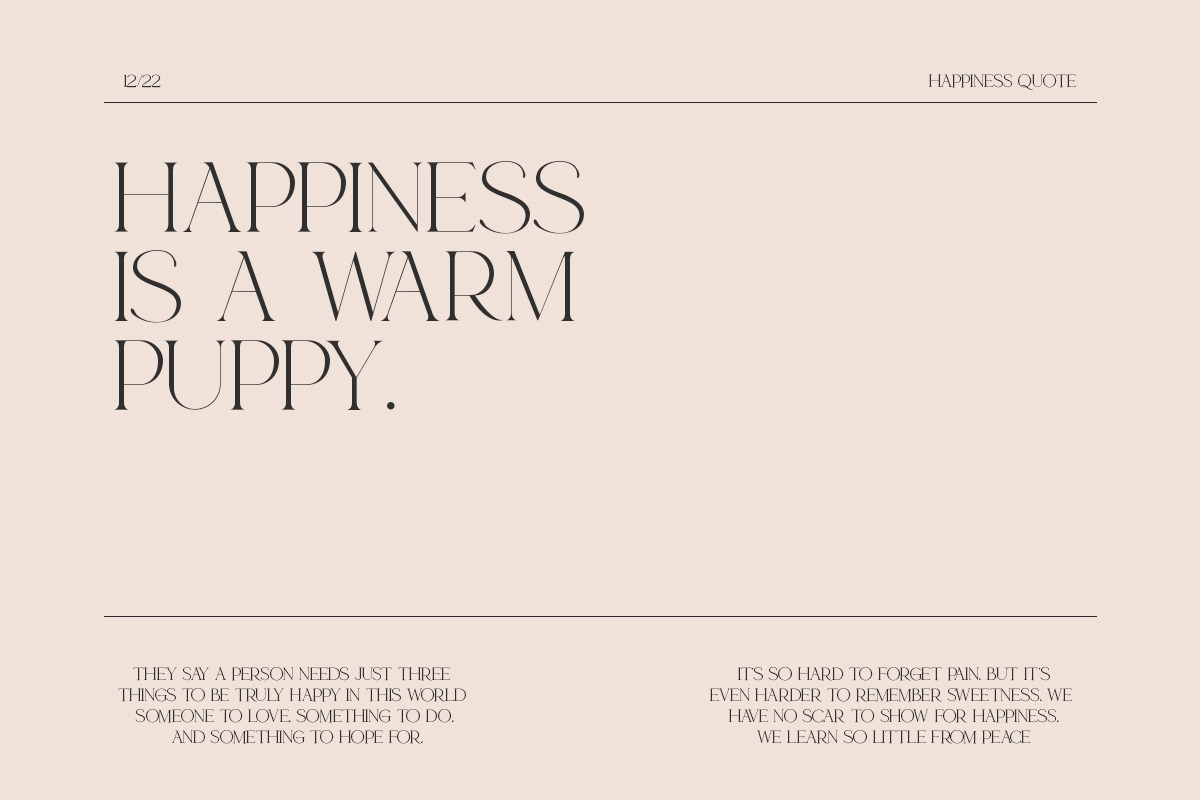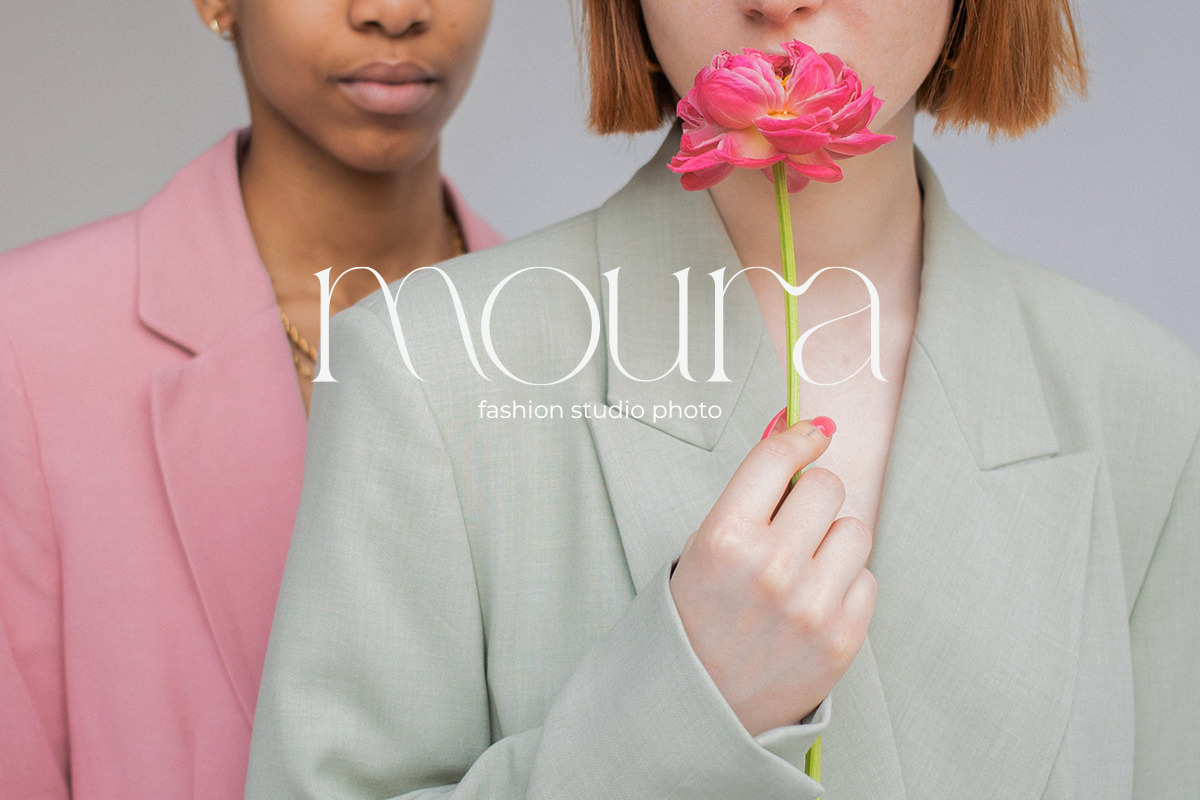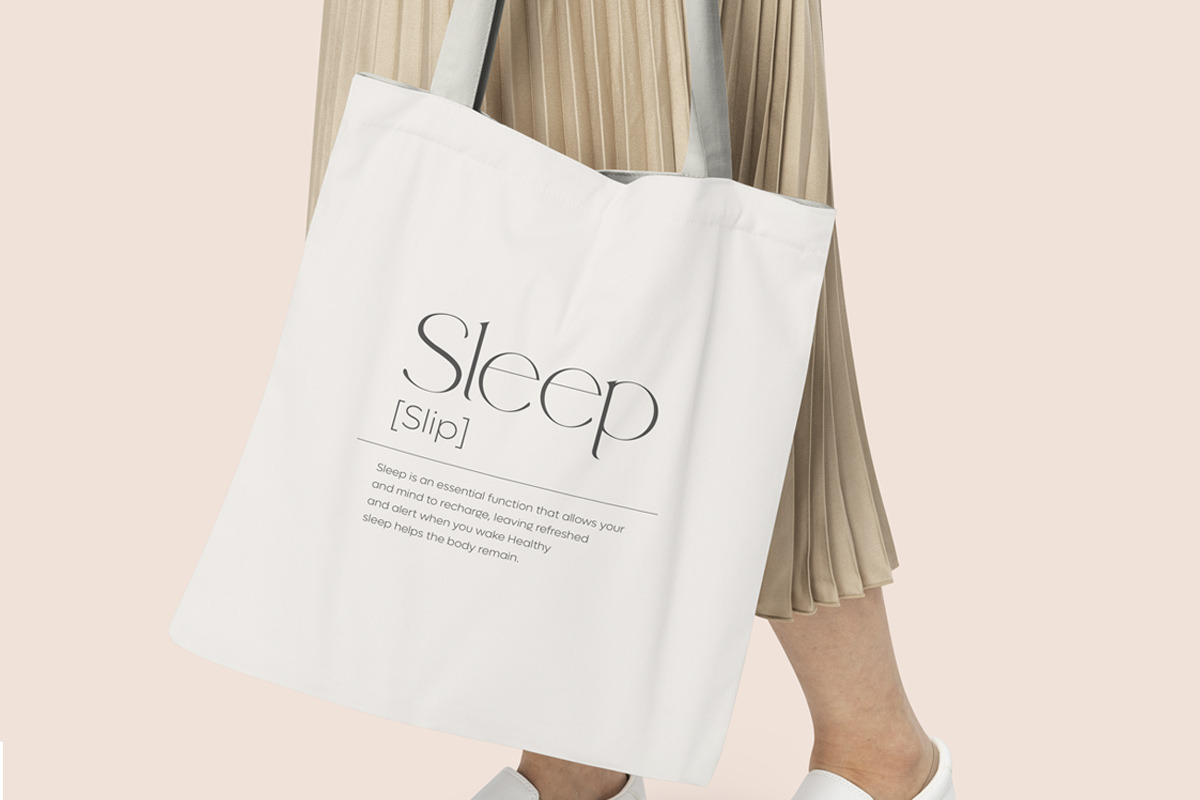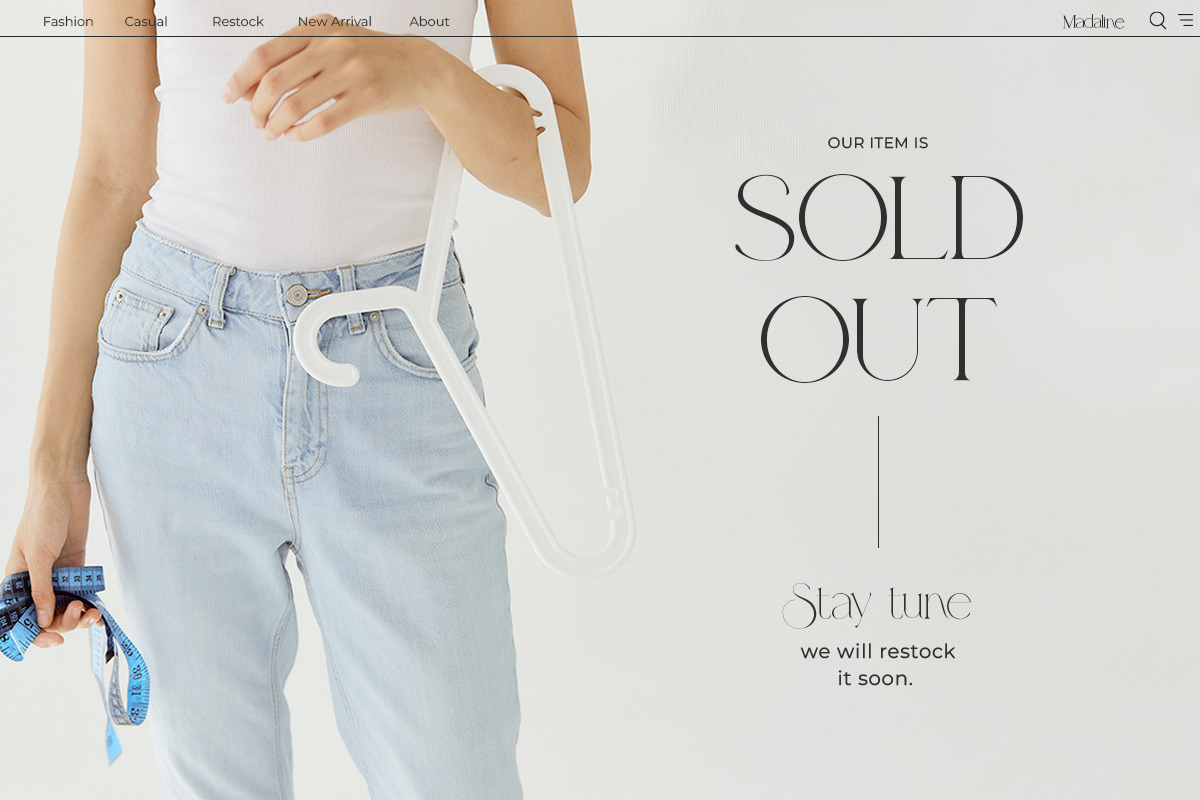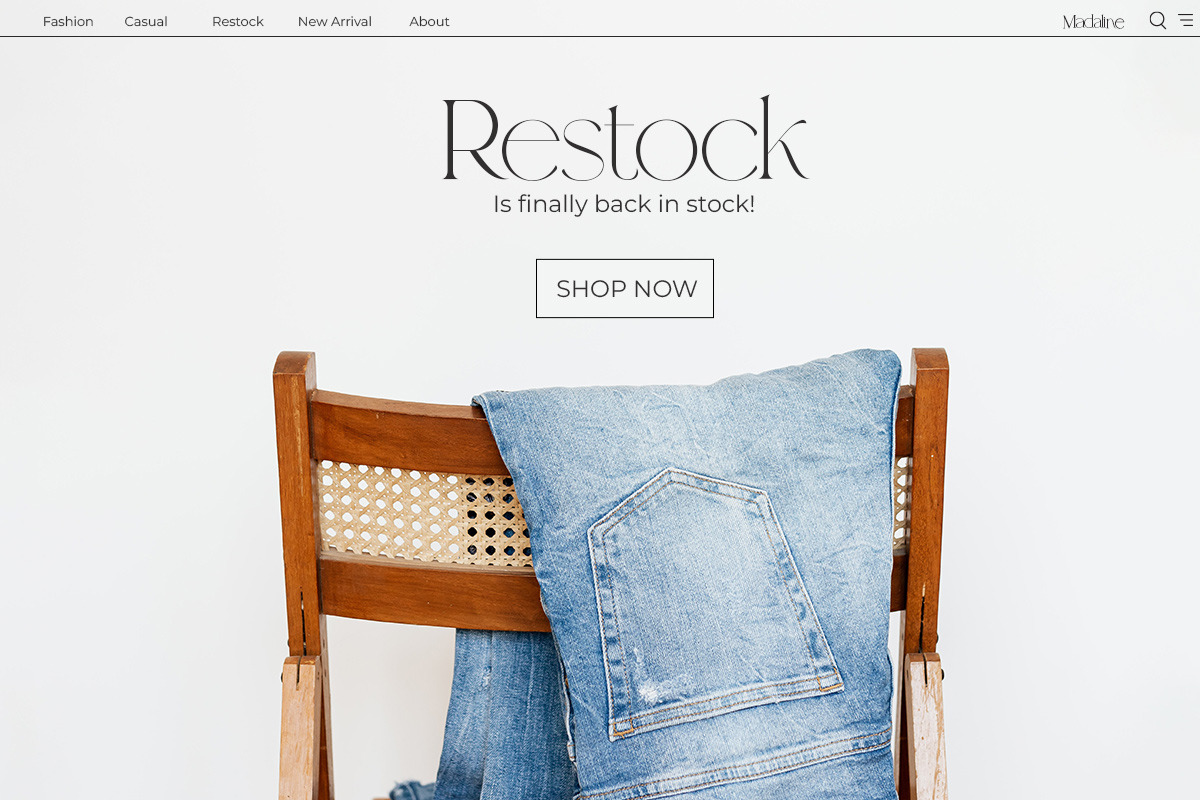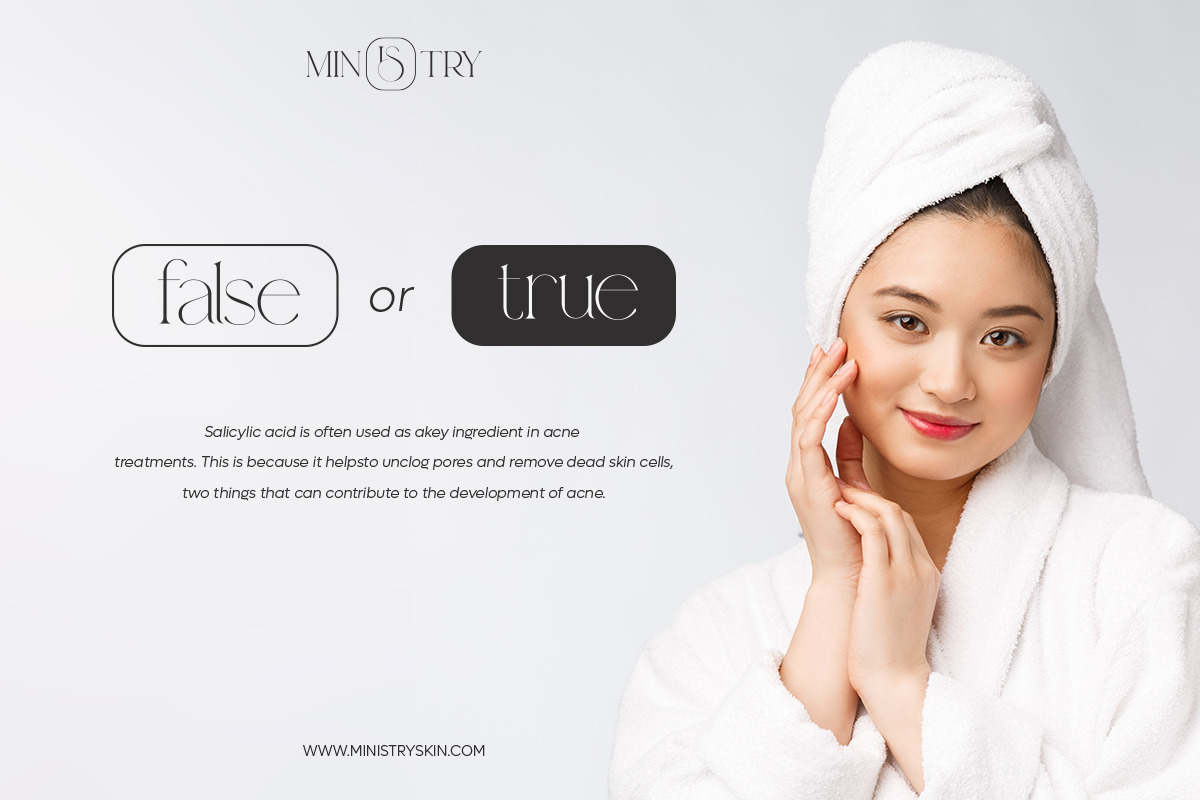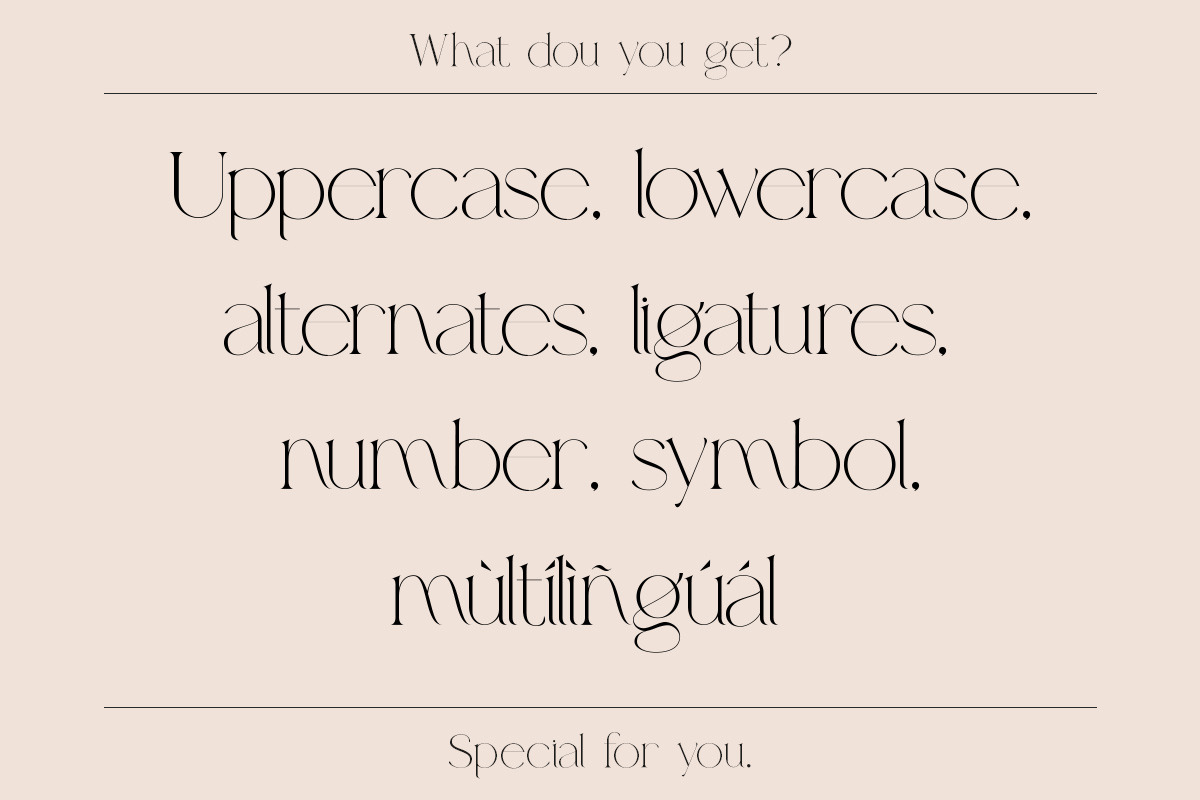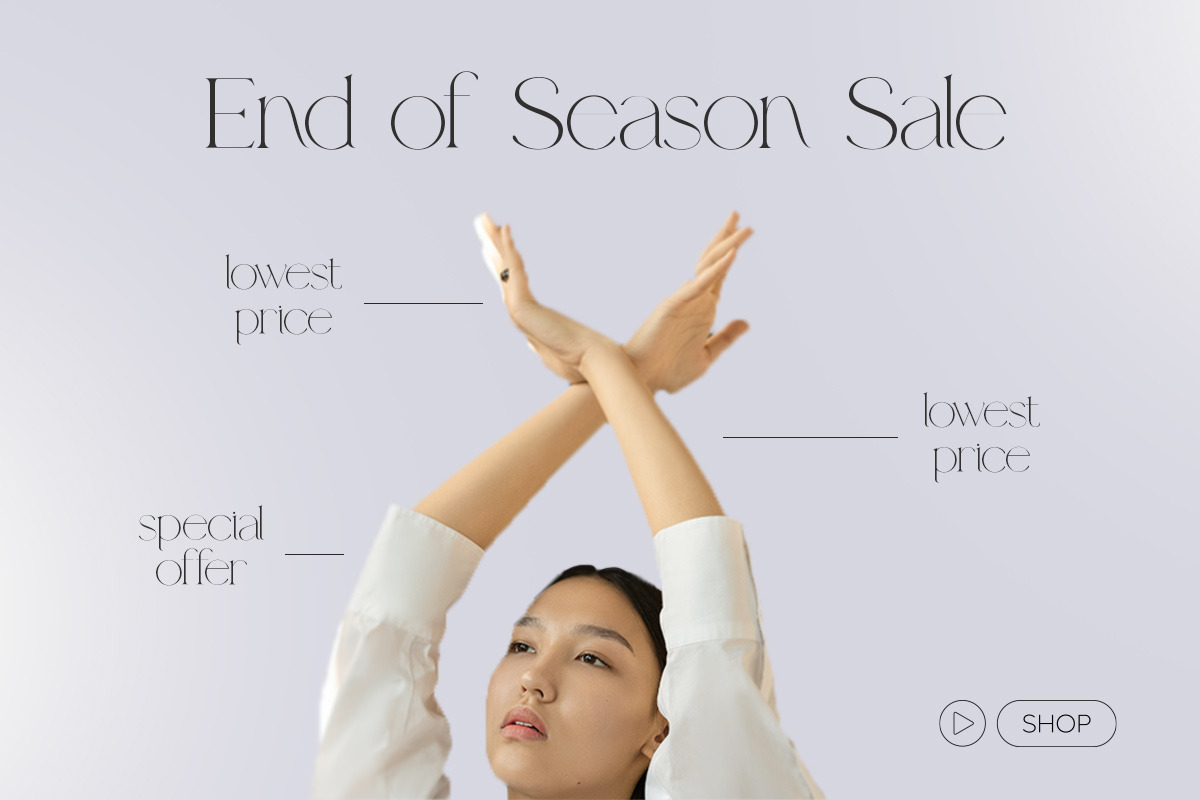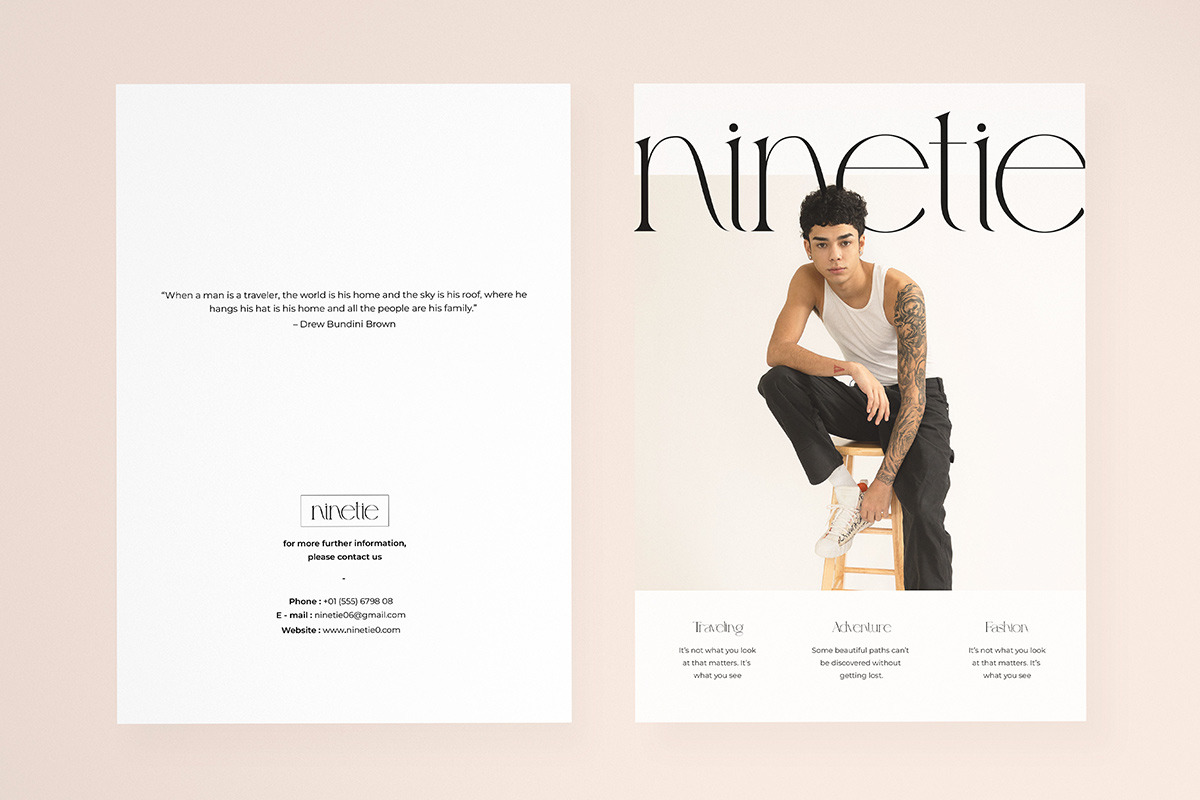
Meira - Makeup & Beauty Serif
Meira is a Modern serif typeface Unique alternate , multilingual support with perfect kerning. This typeface is perfect for an elegant & luxury logo , classy editorial design, women's magazine, fashion brand , cosmetic brand, fashion promotion , modern advertising design, invitation card, art quote, home decoration , book/cover titles, special events, and much more.
Meira Features: